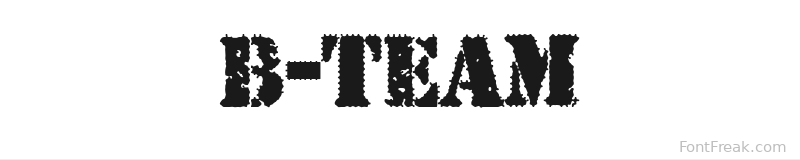
Athletic Supporter
About Athletic Supporter
Athletic Supporter is a unique display font designed by Mickey Rossi, characterized by its bold, athletic-inspired aesthetic. This typeface falls into the category of decorative fonts, making it an ideal choice for projects that aim to convey a sense of energy and dynamism. The font features strong stroke weights and a robust presence that exudes confidence. The contrast between thick and thin strokes adds a layer of visual interest, while the well-defined spacing between characters ensures legibility and clarity.
This font is perfect for a variety of use cases. It shines in the realm of sports-related graphics, such as team jerseys, event posters, and promotional materials for athletic events. Additionally, it can be effectively utilized in creating eye-catching banners, merchandise designs, or even as a standout element in website headers. Other potential applications include fitness brand logos and social media graphics aimed at engaging active audiences.
The target audience for the Athletic Supporter font includes graphic designers, small business owners, and content creators who are looking to evoke a sense of movement and excitement in their work. Whether you're crafting a vibrant flyer for a local sports tournament or designing playful merchandise for a gym, this font provides the perfect touch of personality.
What sets the Athletic Supporter font apart is its versatile appeal and distinctive style. It captures the spirit of athleticism while maintaining a sense of fun, making it a valuable addition to any designer's toolkit. With its freeware license, you can easily access the Athletic Supporter font free download, allowing you to incorporate this energetic typeface into your projects without hesitation.
Author Mickey Rossi